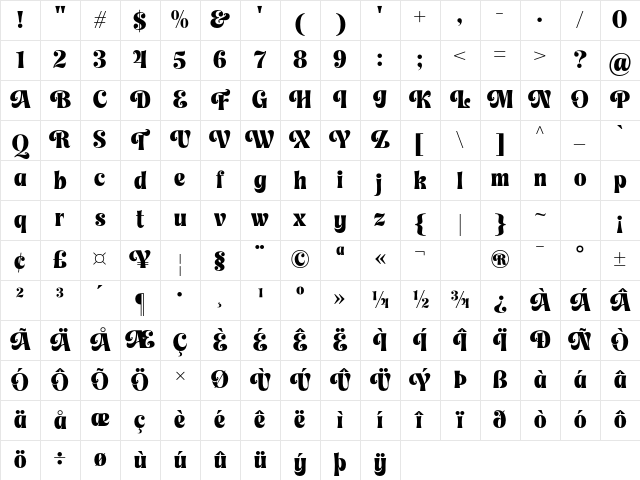
Rolie Twily Regular Free Font
Rolie Twily Regular
Designer: Laire Banyu Sandi Pawenang
Design Context for Rolie Twily
Rolie Twily is a composed and adaptable typeface that performs quietly and consistently across a wide range of design contexts.